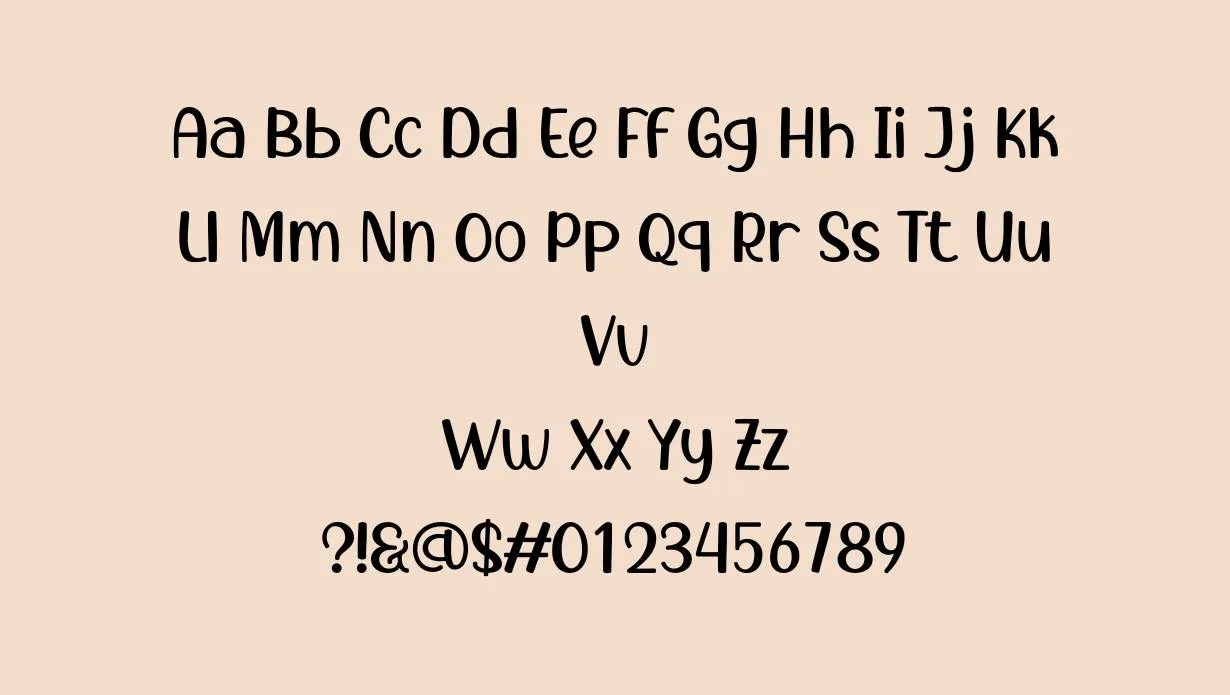
Boba Panda Font is a fancy font that has charming and whimsical vibes, This font was designed by 7NTypes, and it is available in TTF and OTF formats.
It comes with a playful and cheerful texture that makes it perfect for any content and makes it readable, incredible, and wonderful.
Boba Panda Font Family